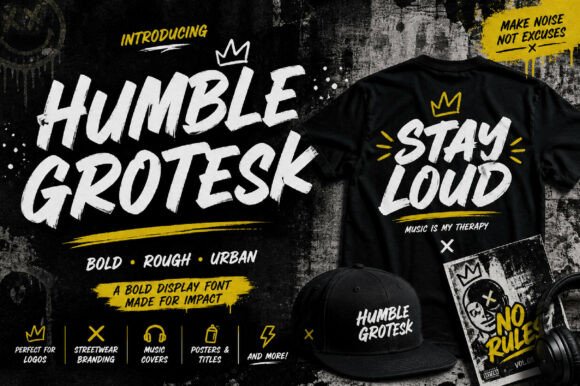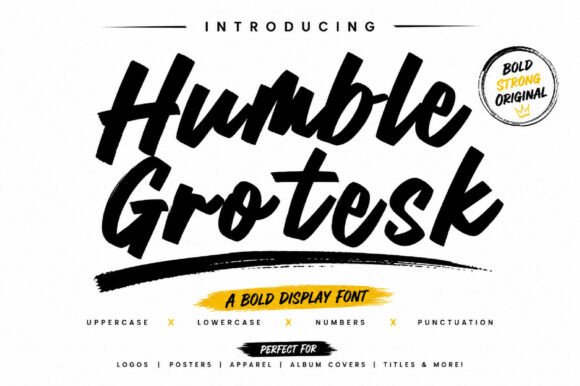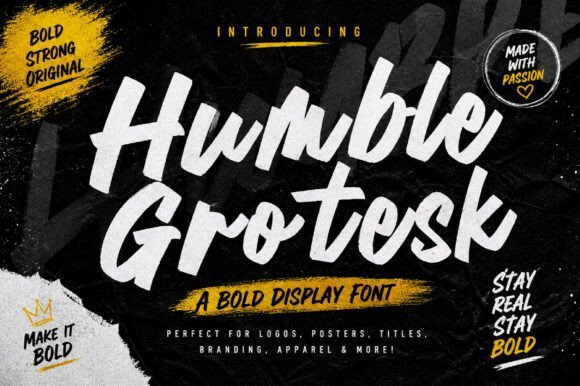
Introduction to Humble Grotesk Font
Humble Grotesk is a dynamic handwritten display font that blends bold strokes with a modern, slightly edgy character.
With its thick brush-style lines, slanted flow, and expressive letterforms, this font creates a strong and energetic look that instantly grabs attention Its bold handwritten style makes Humble Grotesk perfect for projects that need a modern and impactful personality.
Key Features of Humble Grotesk Font